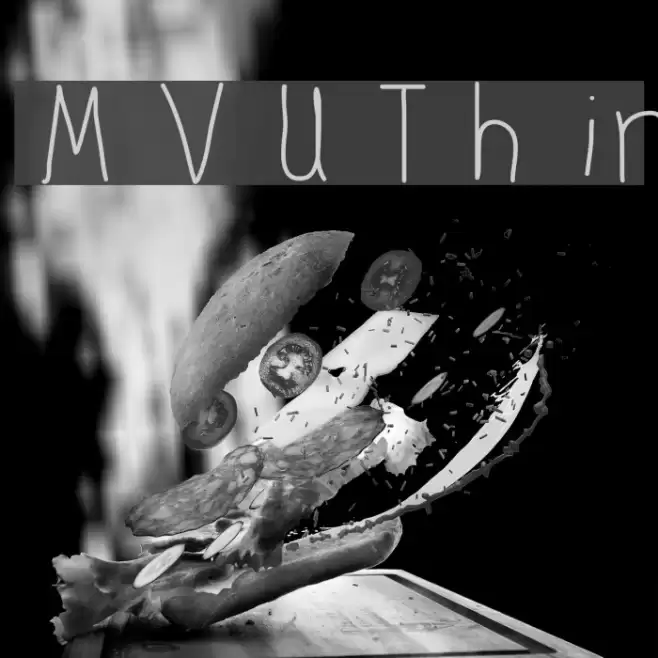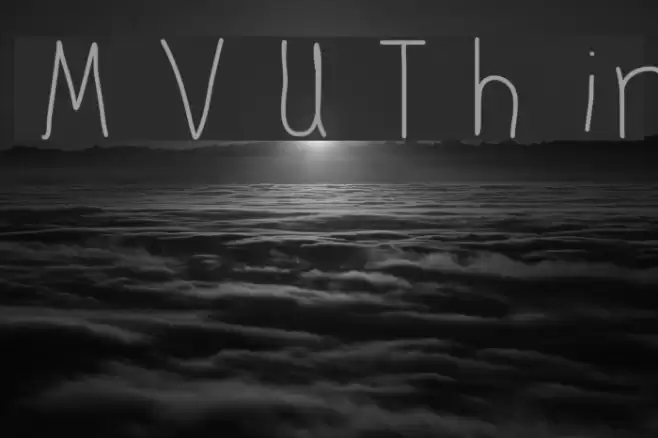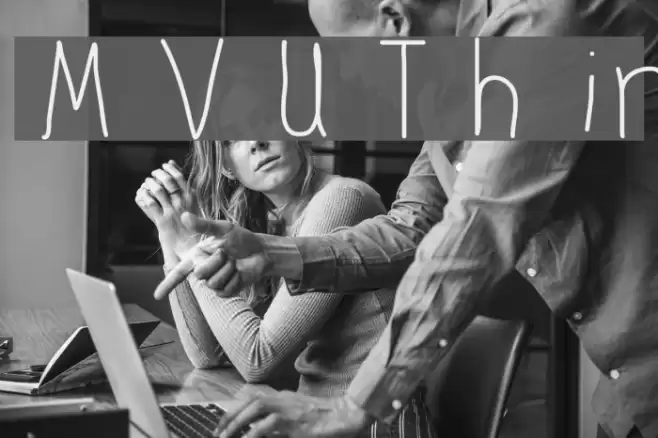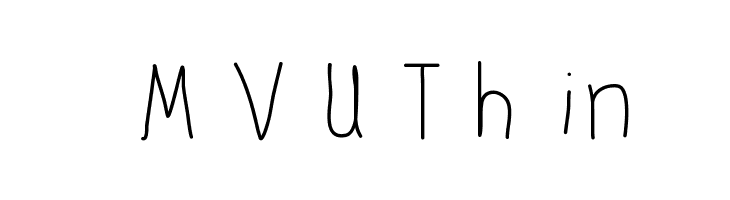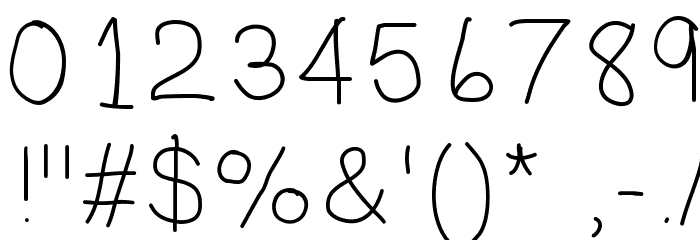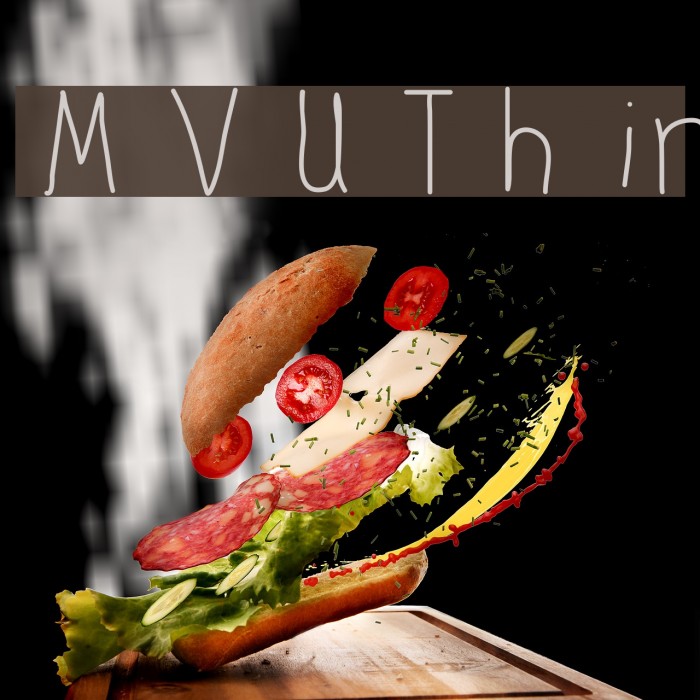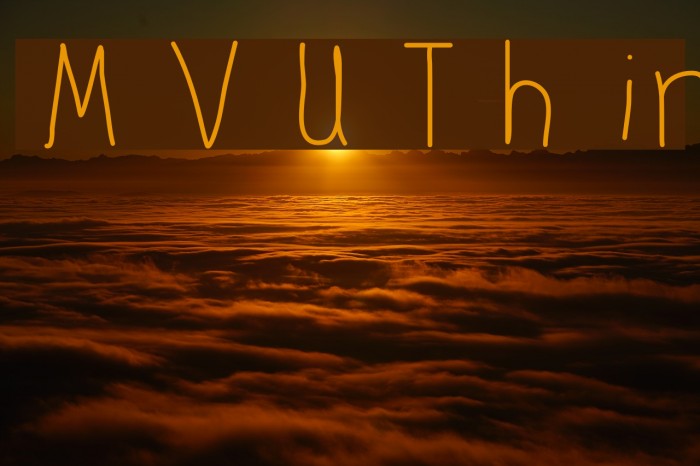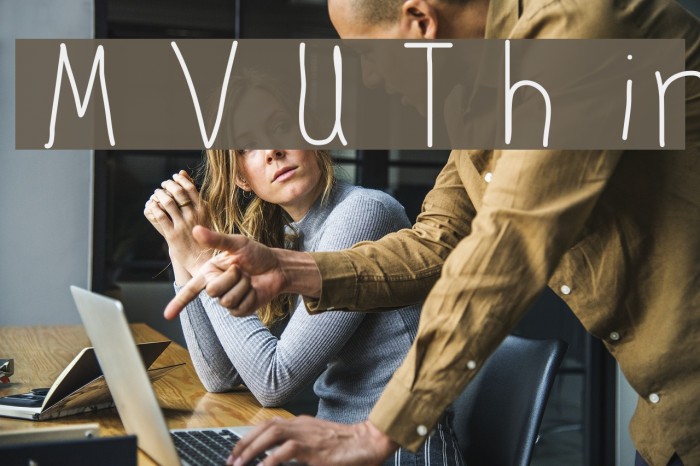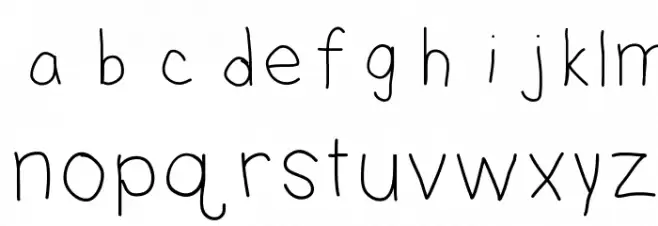
MVUThin
This font features a playful and casual handwritten style with a thin stroke weight. The characters are slightly irregular, giving it a whimsical and informal appearance. The uppercase letters are tall and narrow, while the lowercase letters maintain a consistent height, adding to the font's approachable feel. The numbers are clear and easy to read, with a similar playful touch. Special characters are included, maintaining the same handwritten aesthetic. Overall, this font exudes a friendly and relaxed vibe, making it suitable for projects that require a personal touch.
A playful, thin, handwritten font with a casual and whimsical style.
- Proposed Projects: Ideal for greeting cards, children's books, casual invitations, and personal blogs.
- Weight: Light
- Overall Style: Casual
- Use Case: Headlines, Informal text, Personal projects